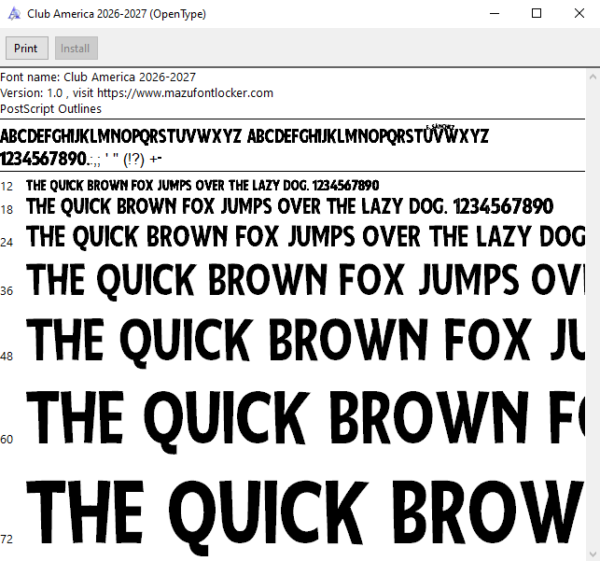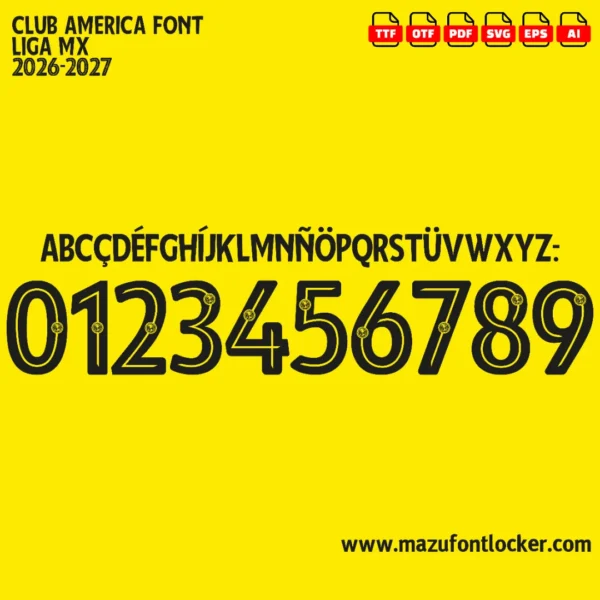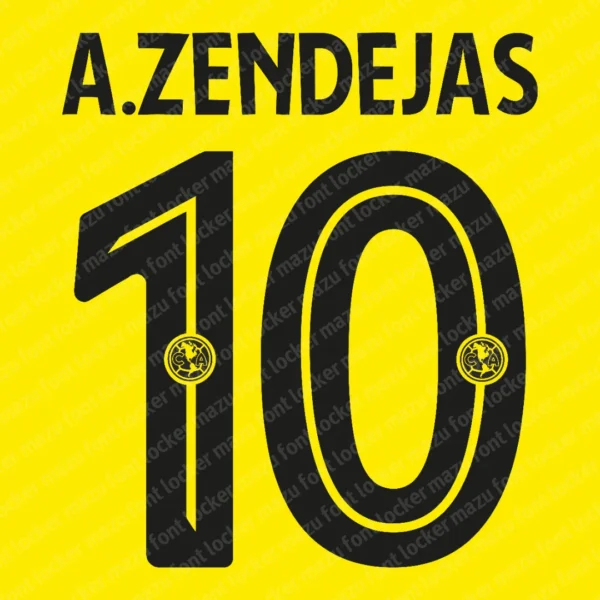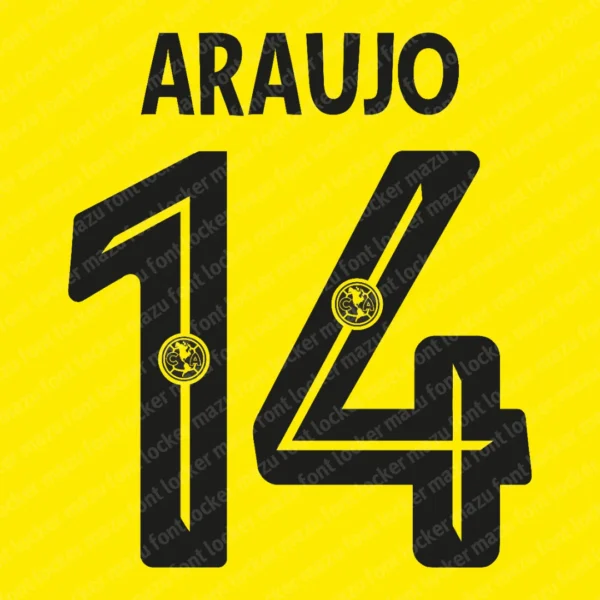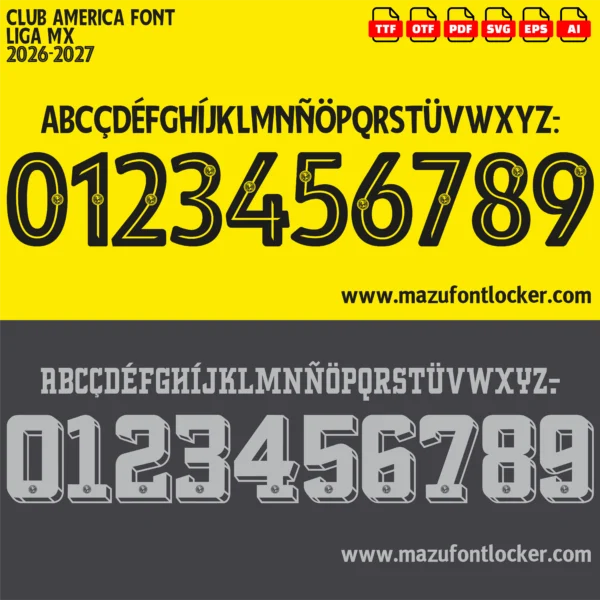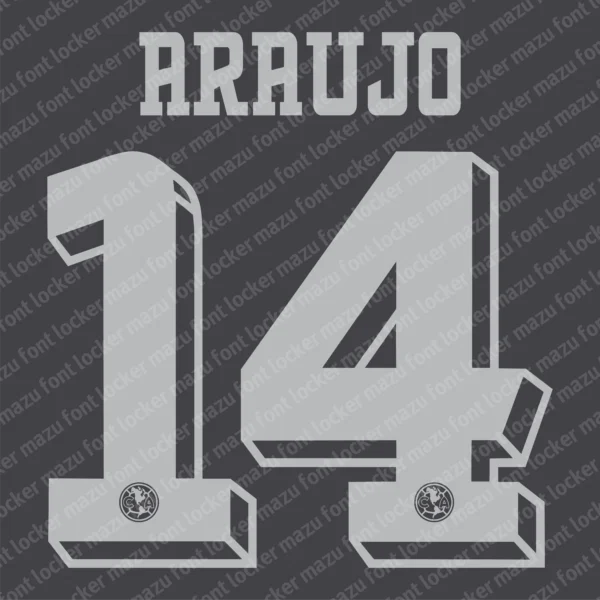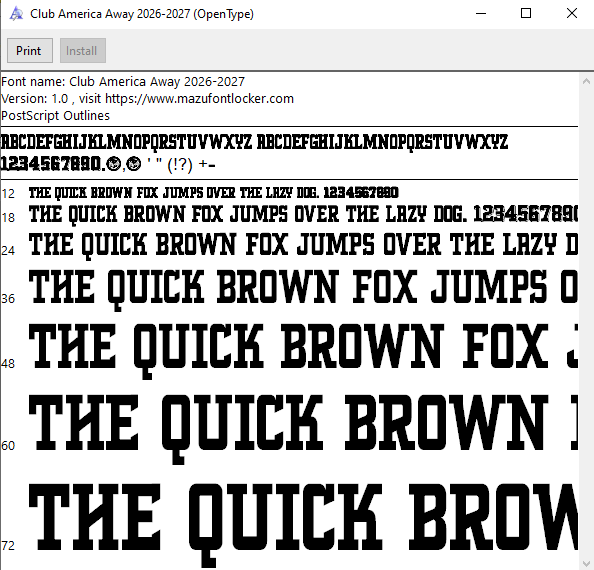
Club América 2026-2027 Font Vector – Legendary Yellow Typeface
The Club América 2026-2027 Font Vector is a premium typeface that accurately recreates the official match lettering worn by Club América during the 2026-2027 season. This high-quality vector font kit captures the bold, elegant, and instantly recognizable typography that perfectly complements the club’s iconic yellow and blue identity.
This font stands out thanks to its precise vector construction and authentic club styling. Every letter and numeral has been meticulously recreated to match the official shirt lettering used throughout the 2026-2027 Liga MX and Copa MX campaign. Whether you’re producing professional kit templates or creating eye-catching football content, the Club América 2026-2027 Font Vector delivers a genuine match-ready appearance.
The lettering featured in the Club América 2026-2027 Font Vector combines clean geometric lines with powerful modern proportions. The result is a premium and highly readable typeface that reflects Club América’s fighting spirit, proud tradition, and loyal fanbase known as the “Águilas”.
• Complete uppercase A–Z alphabet and numbers 0–9 in authentic Club América 2026-2027 style
• Includes authentic league badge glyph placement beneath player numbers